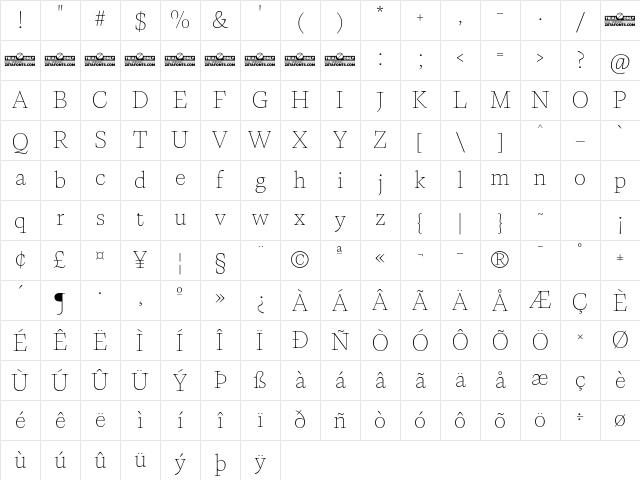
Complete CalvinoTrial Thin glyph index. Displaying only characters natively supported by CalvinoTrial Thin font.
CalvinoTrial is a composed and adaptable typeface that performs quietly and consistently across a wide range of design contexts. Its slender proportions lend an understated elegance to any composition.